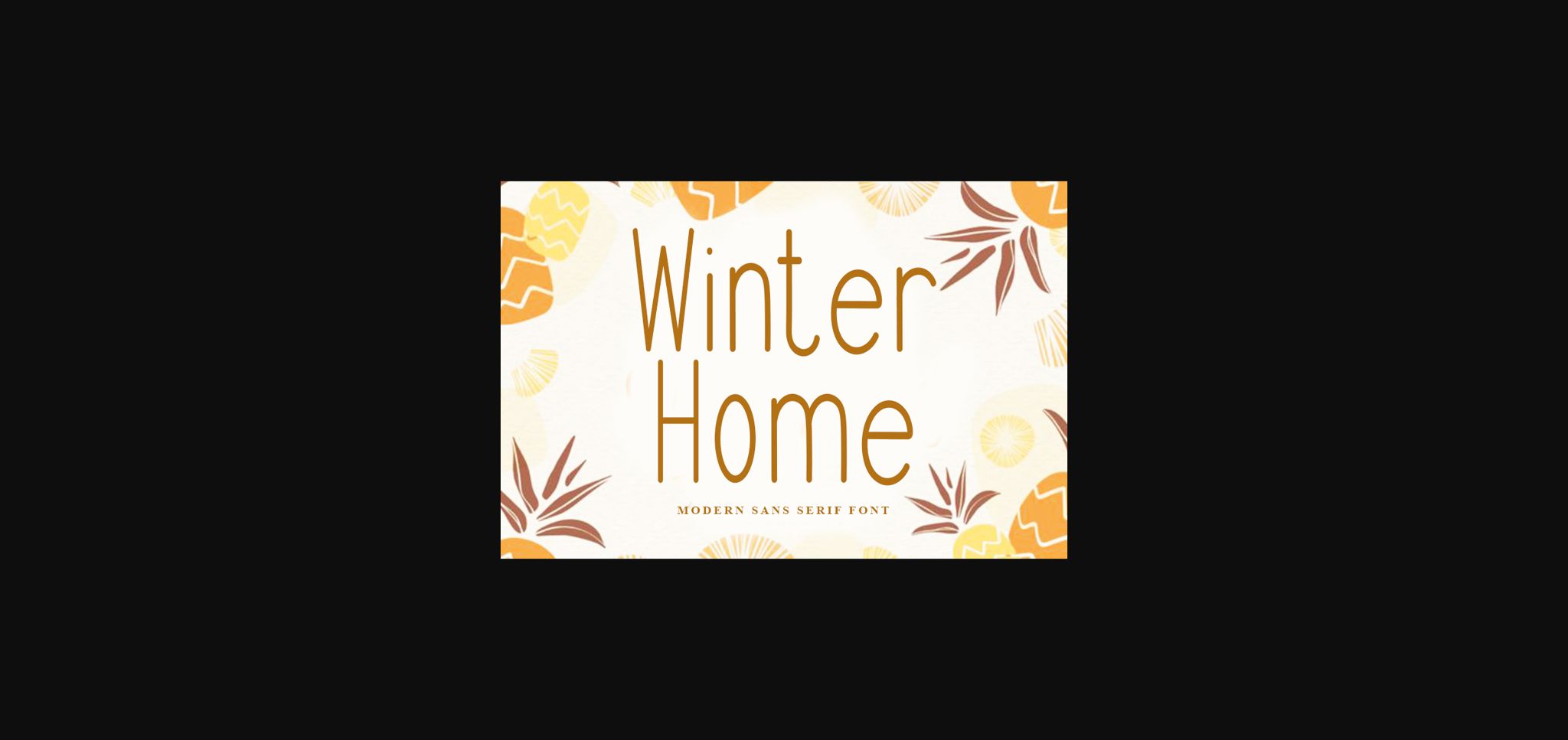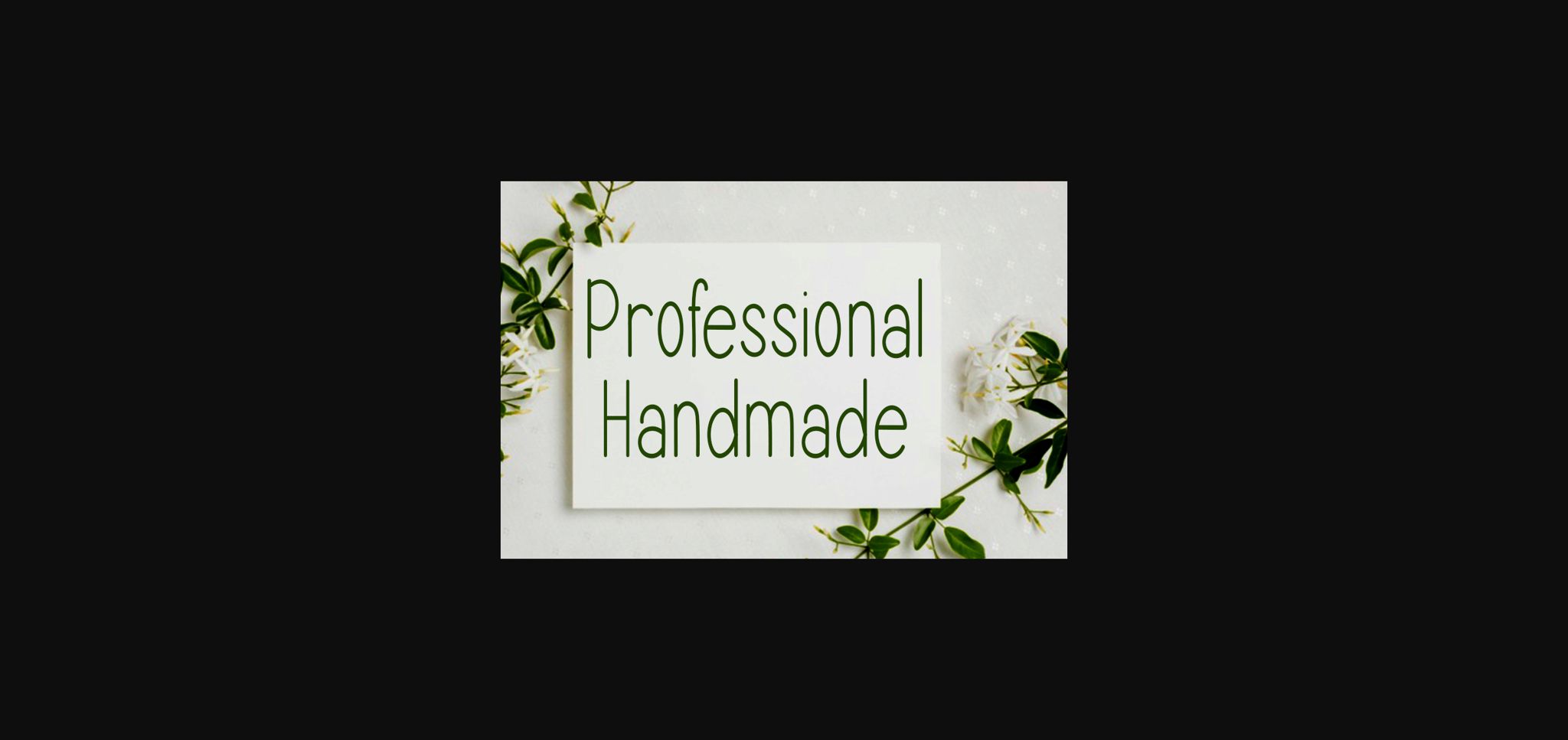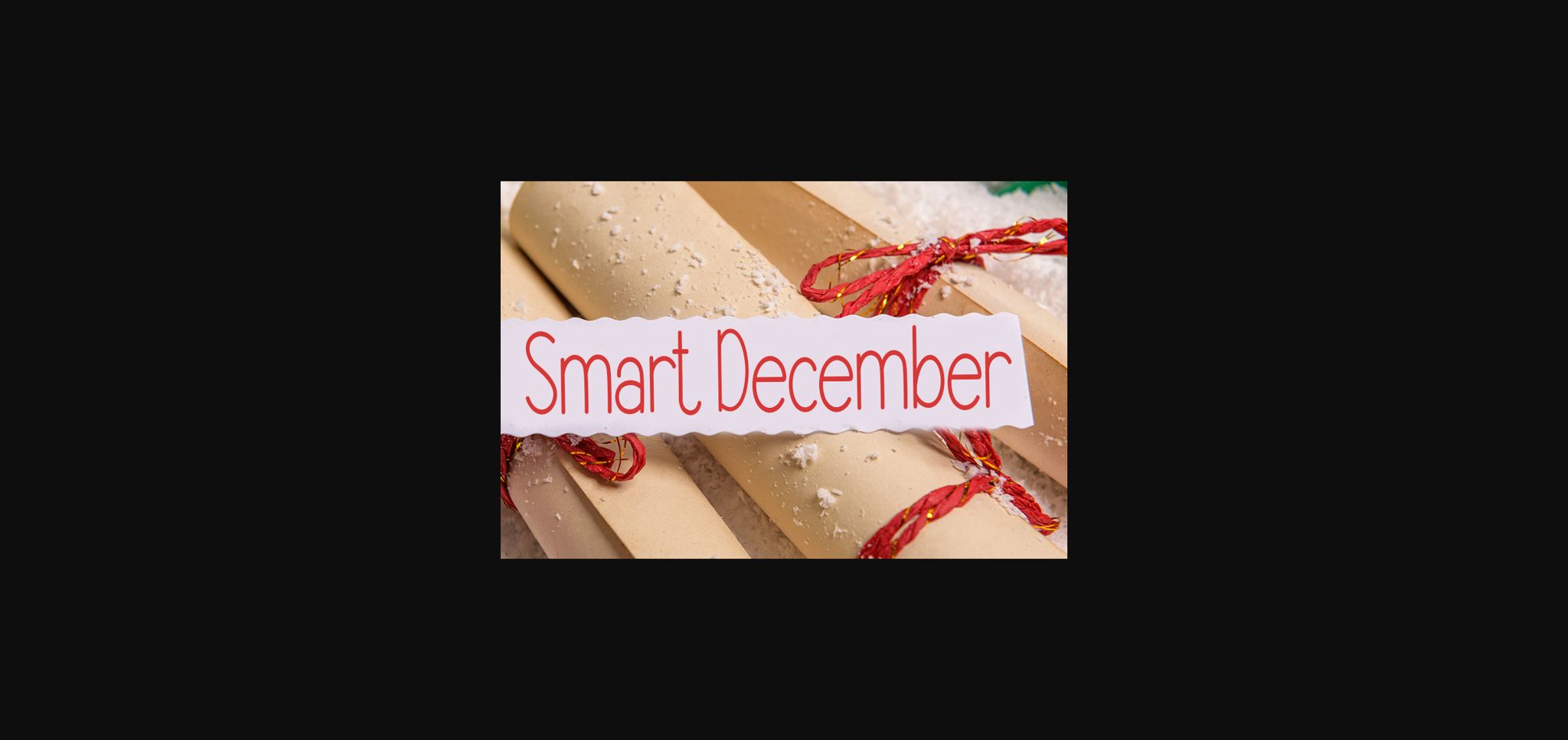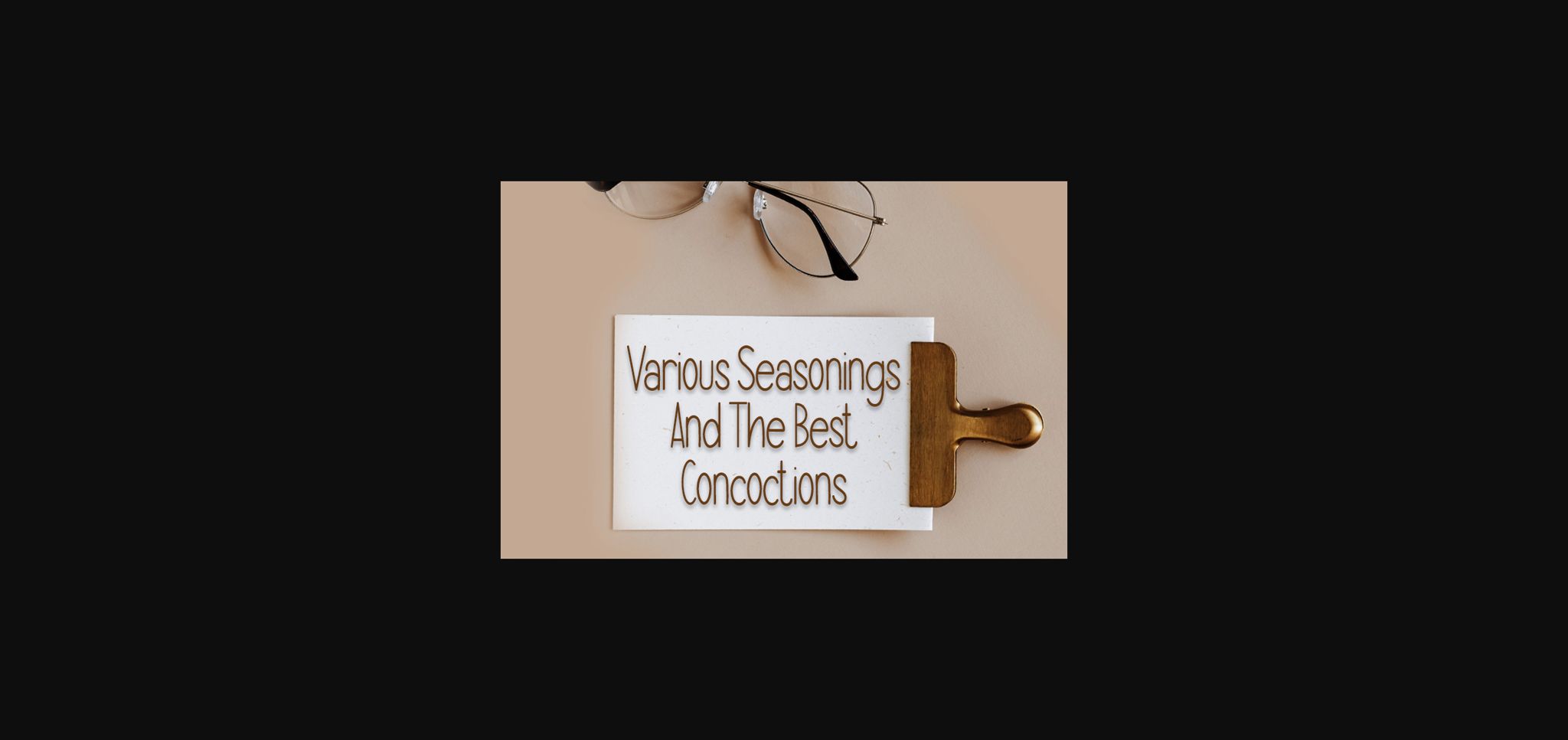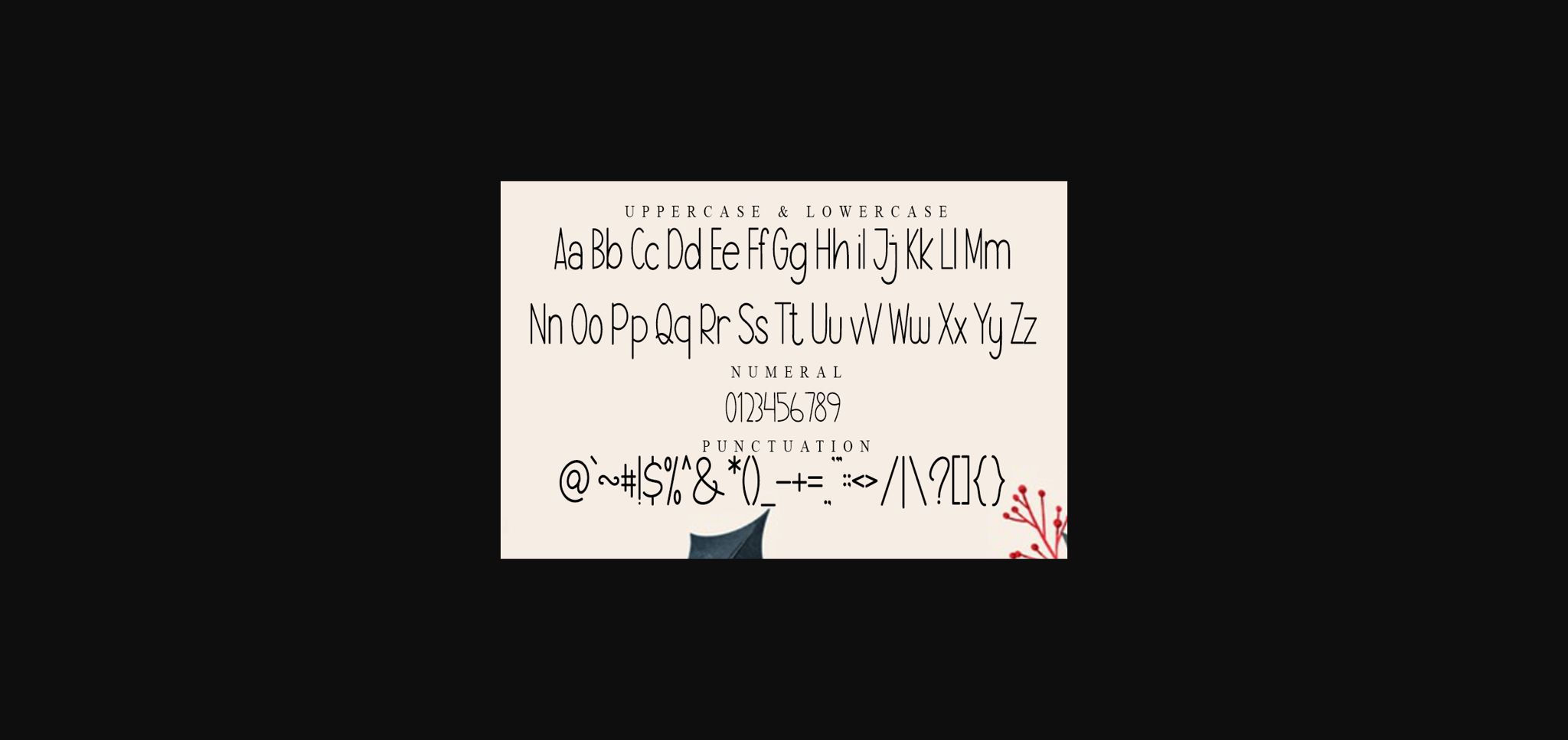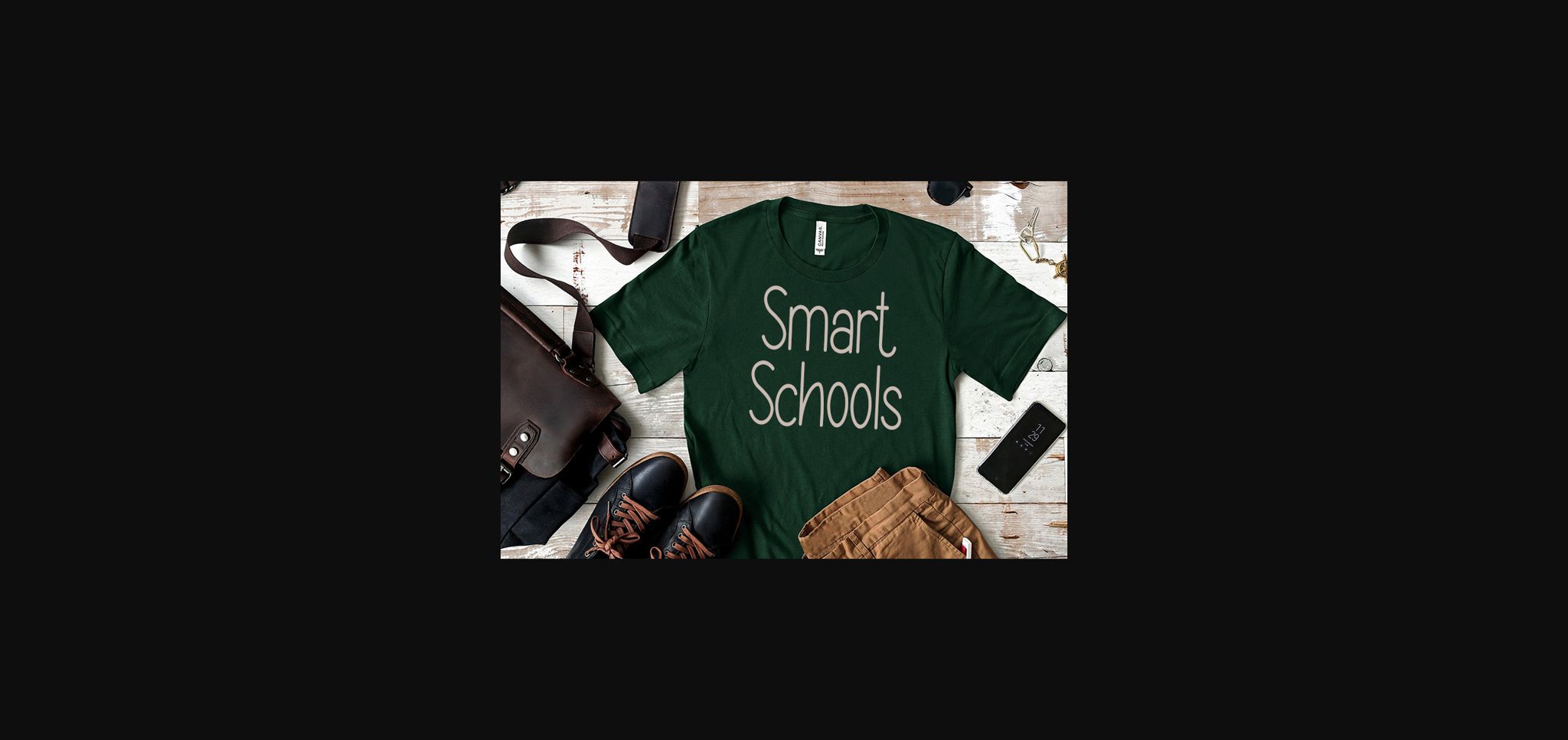
Winter Home Font
About Winter Home Font
Winter Home is a minimalistic handwritten, sans serif font with a beautiful balance in its letters. It looks beautiful on a variety of designs requiring a personalized style, such as wedding invitations, thank you cards, weddings, greeting cards, logos, and so on.